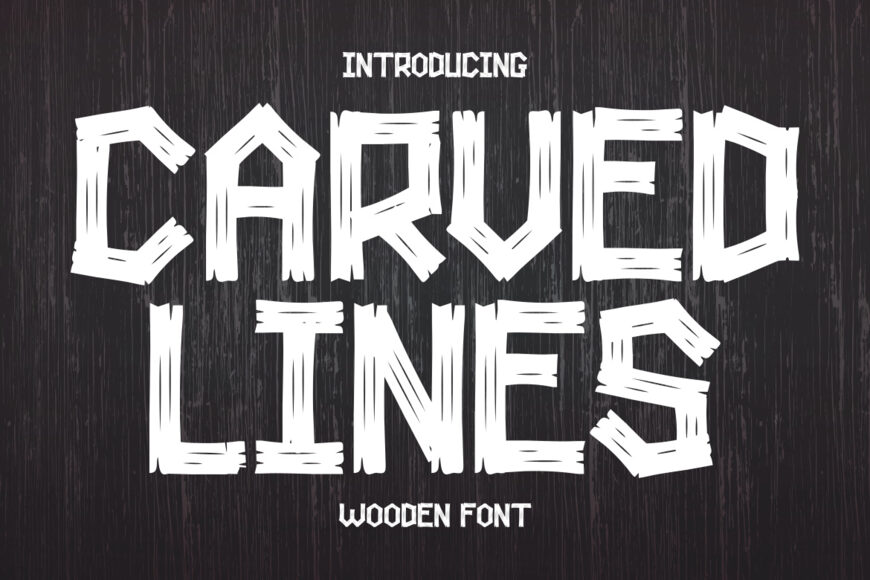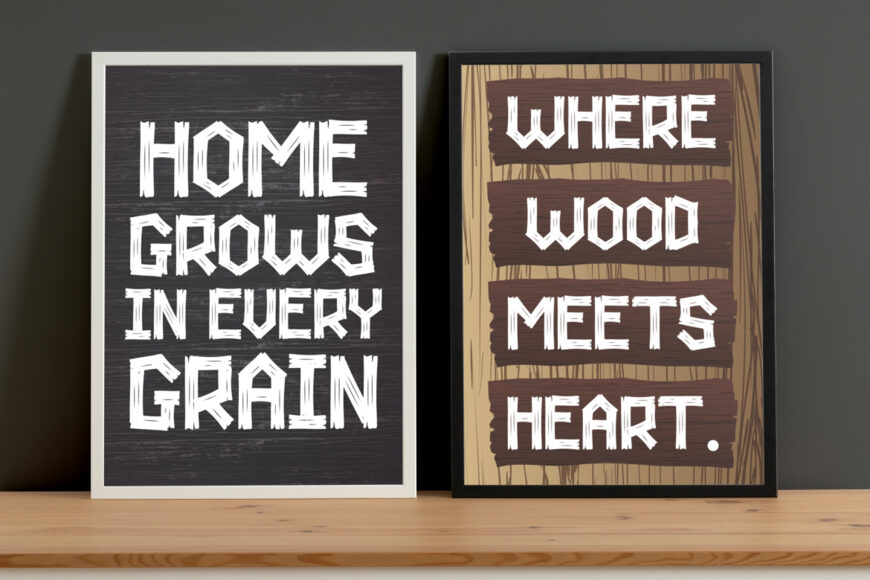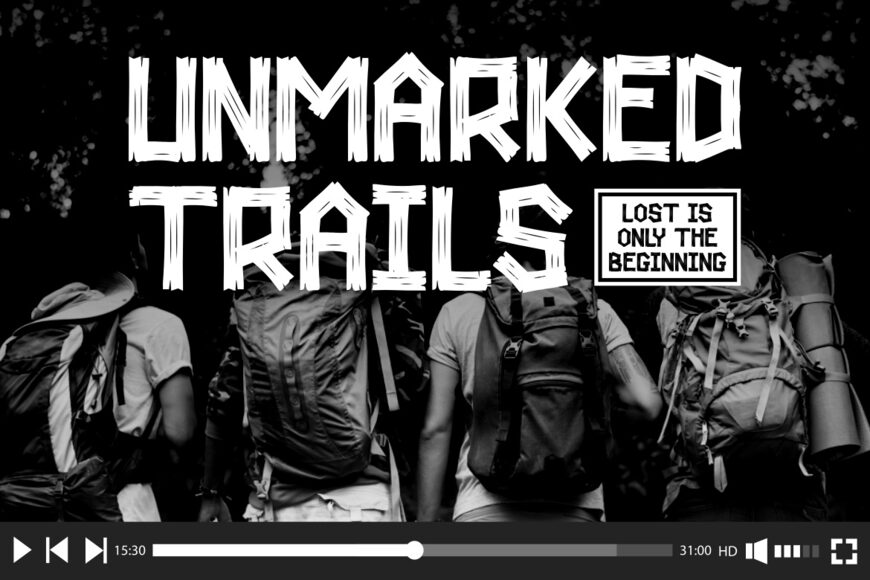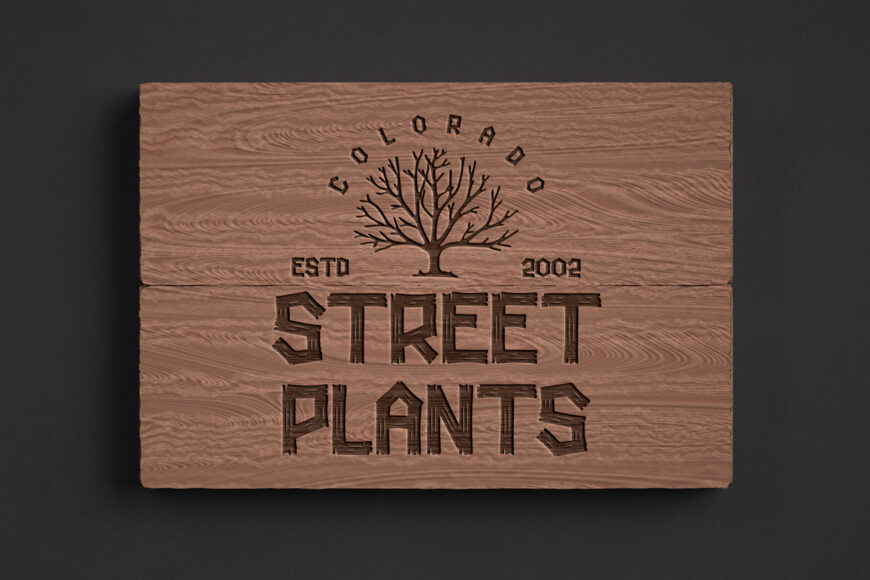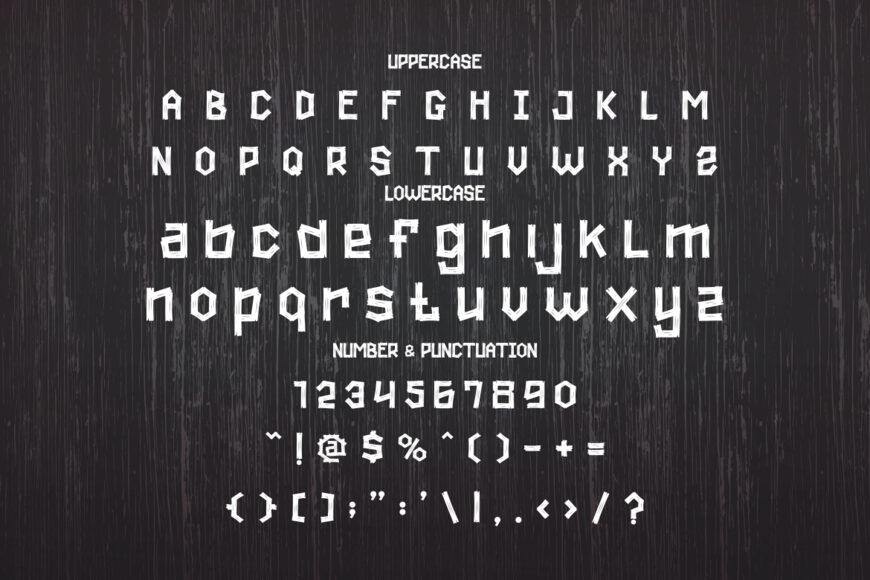
Carved Lines is a display typeface inspired by traditional wood carving and manual craftsmanship. The letterforms are tall and bold, with uneven strokes that mimic carved cuts on solid material. Each character shows sharp angles, rough edges, and subtle inconsistencies that give the font a handmade feel.
The texture feels dry and raw, similar to marks left by chisels and carving tools. Stroke weight stays firm and solid, making the font readable at large sizes while keeping its rugged personality. This font leans toward a rustic, crafted, and vintage style rather than modern or playful aesthetics.